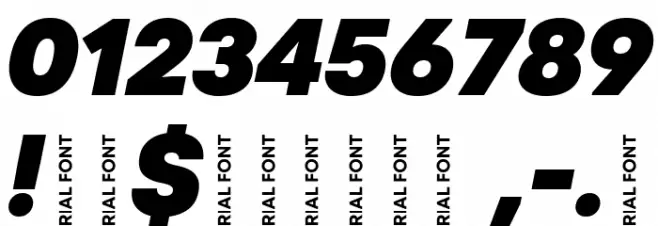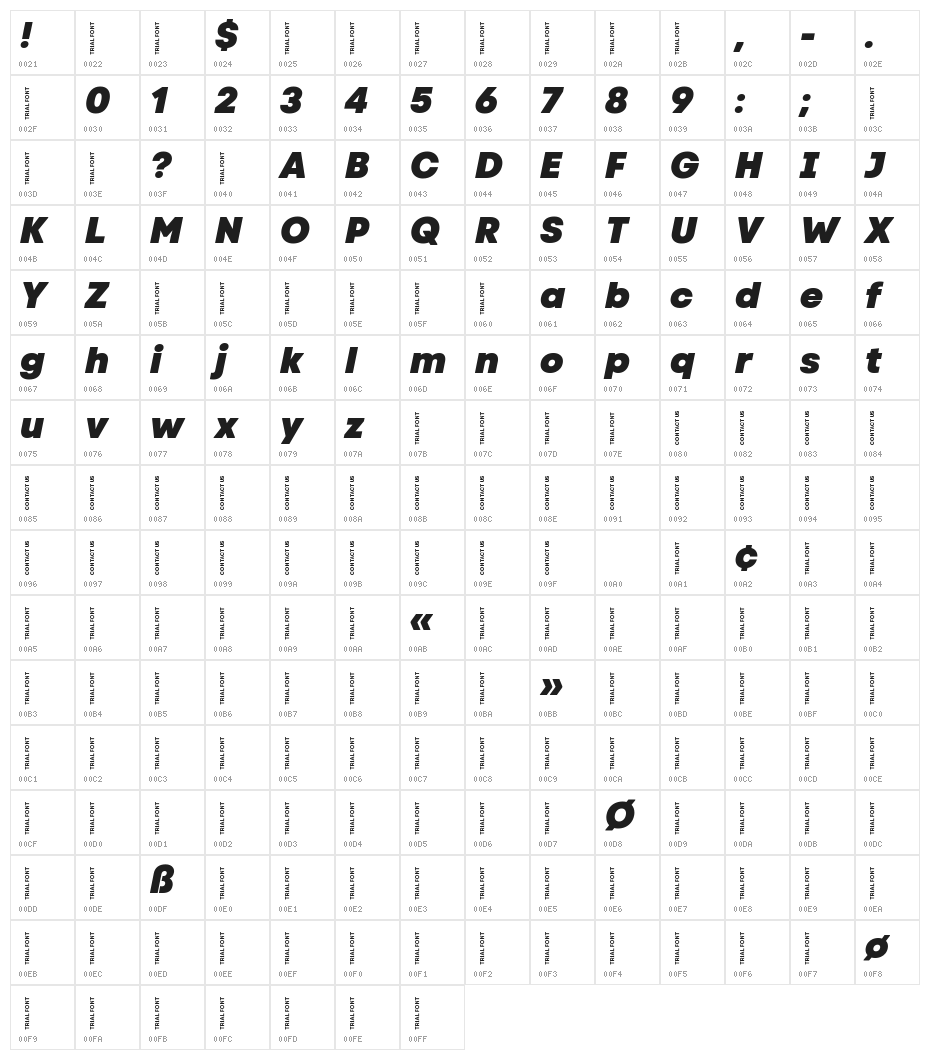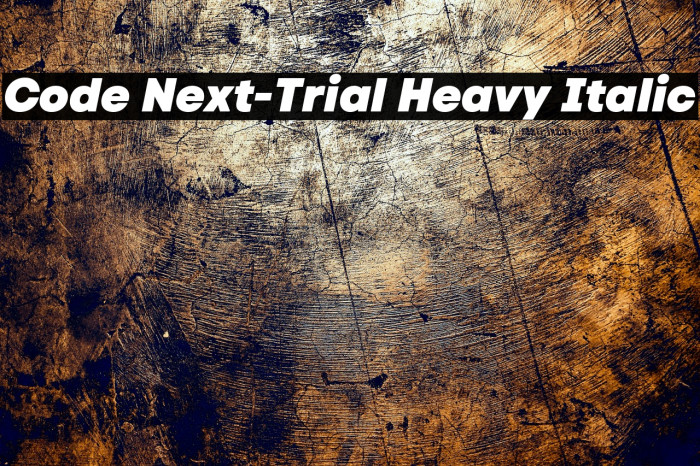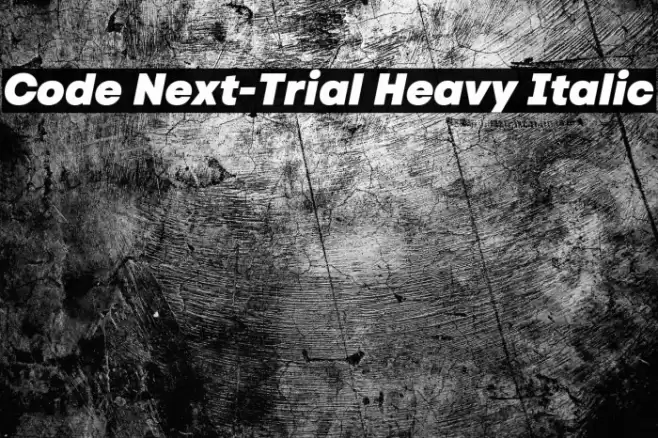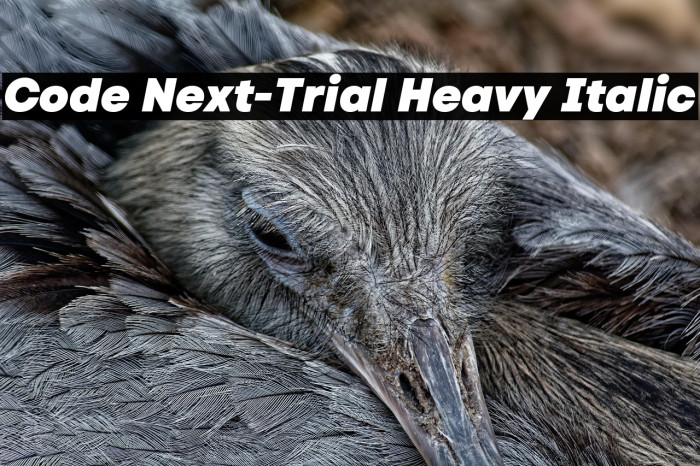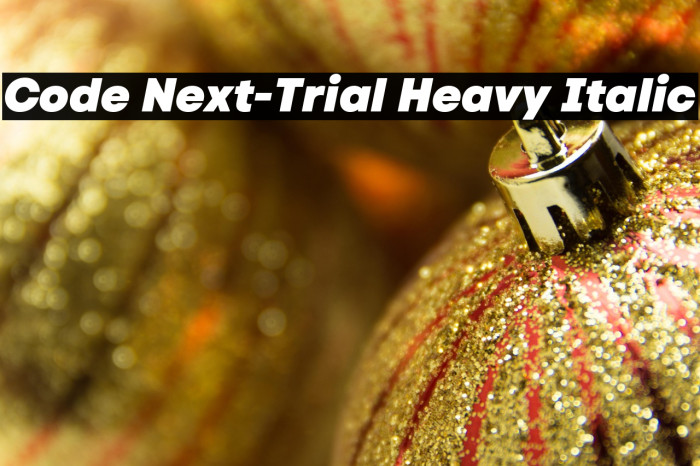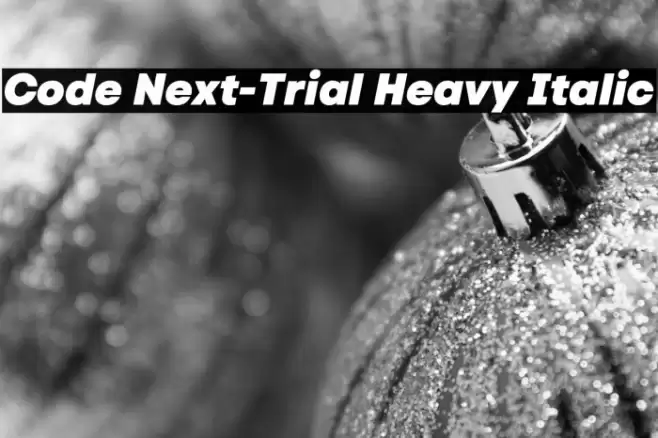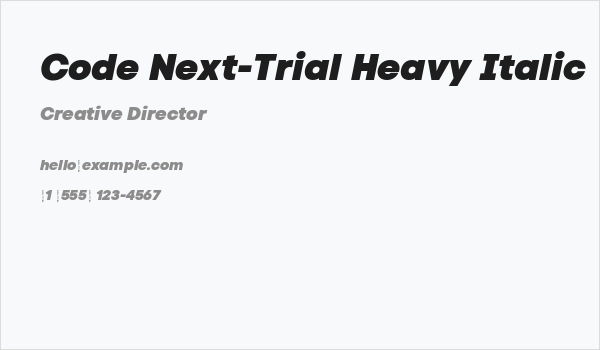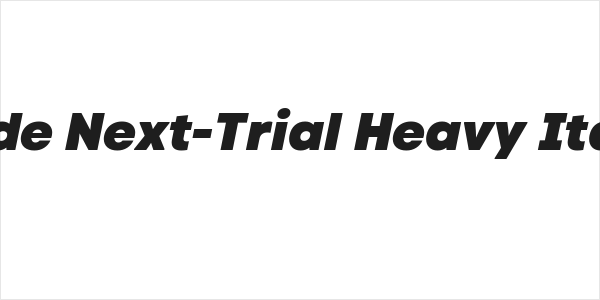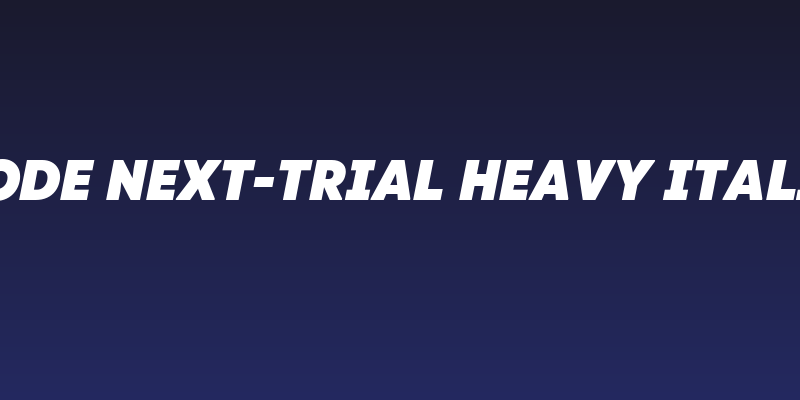
Code Next-Trial Heavy Italic Font
Code Next-Trial Heavy Italic Description
This font features a bold and commanding presence with its heavy weight and italic style. The letters are robust and impactful, making it ideal for attention-grabbing headlines and statements. The italic slant adds a dynamic and forward-moving energy, while the thick strokes ensure high visibility and legibility. The characters are well-defined with smooth curves and sharp edges, giving it a modern and professional look. The numbers and special characters maintain the same boldness and style, ensuring consistency across all text elements.